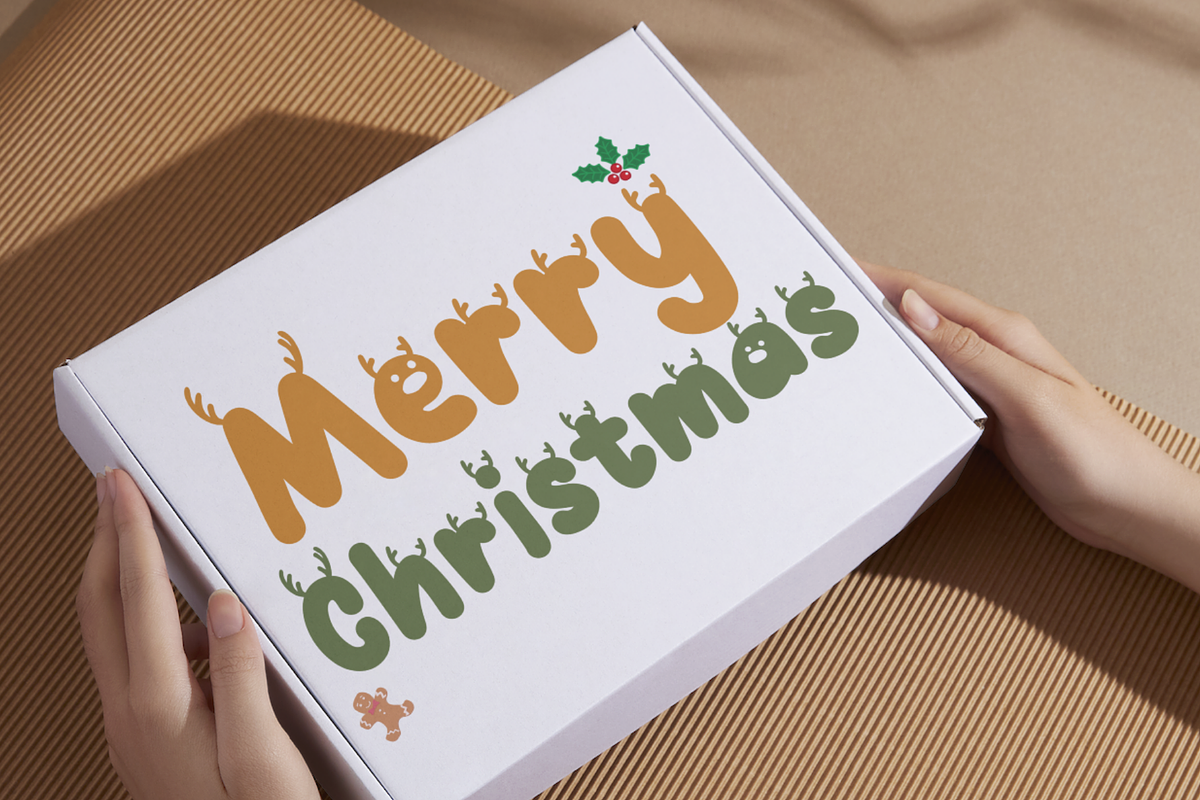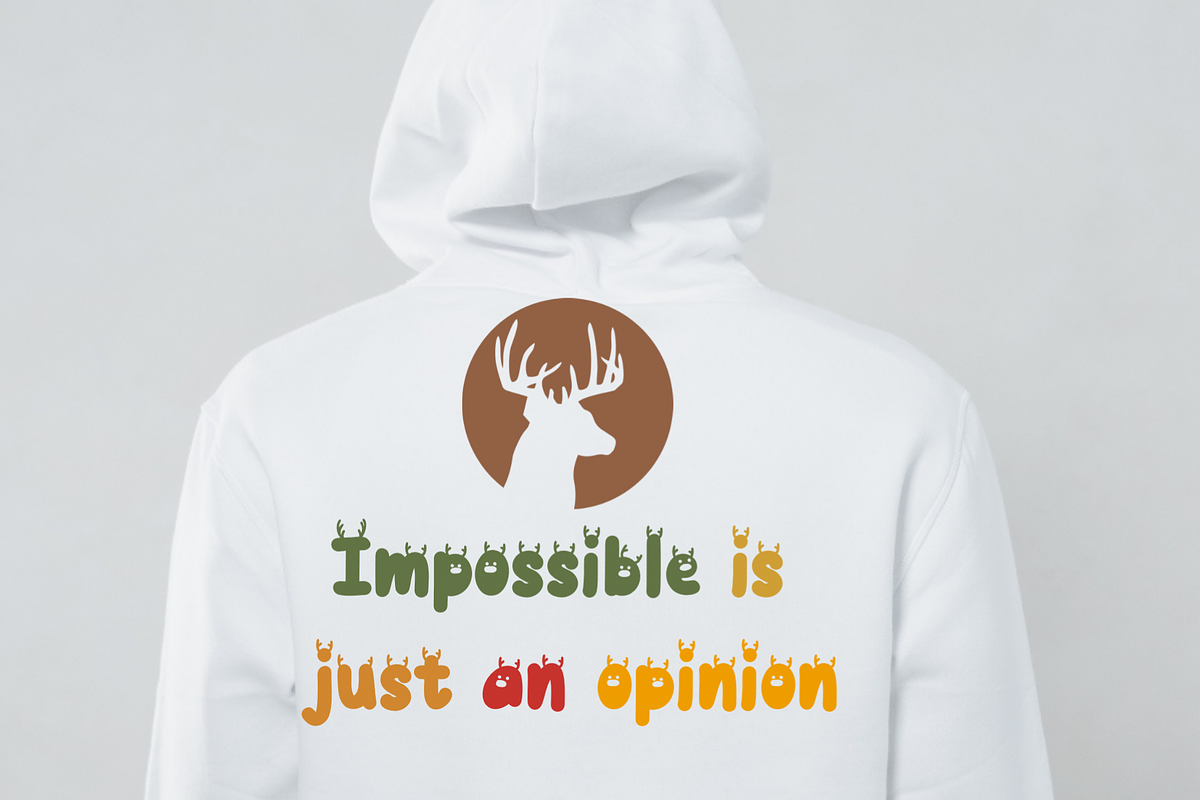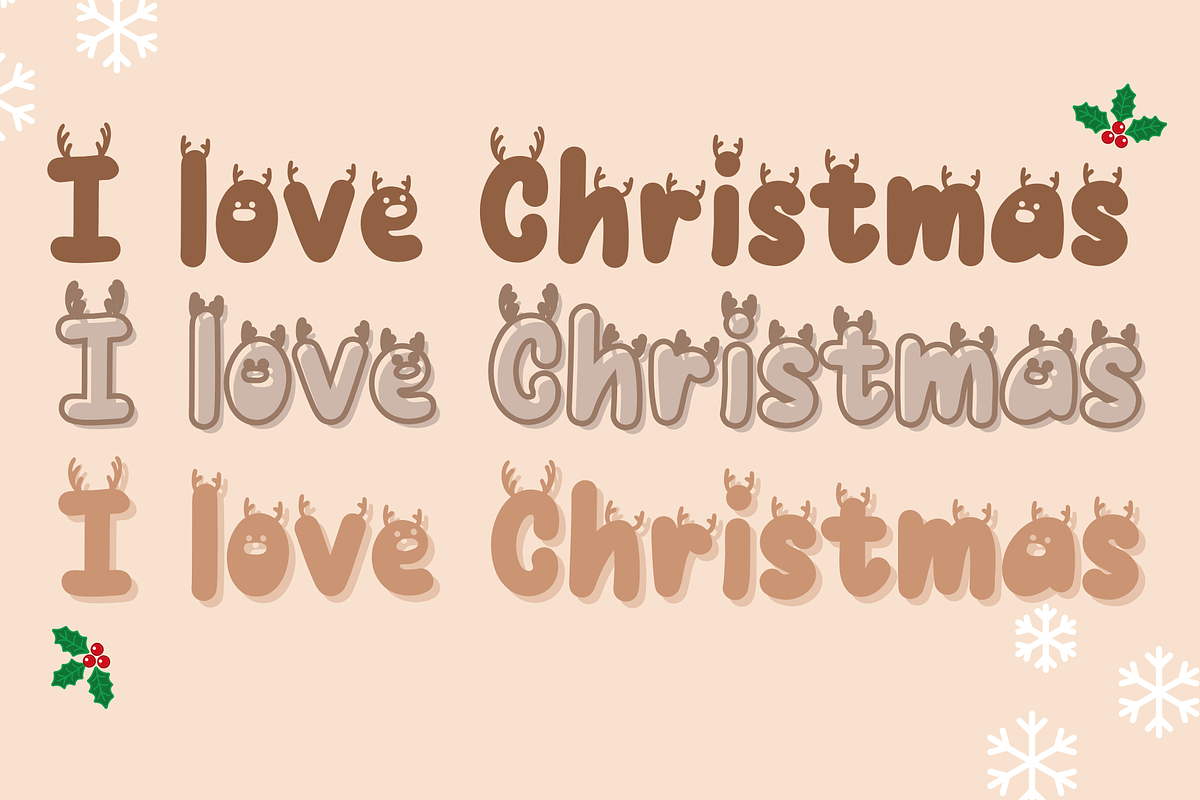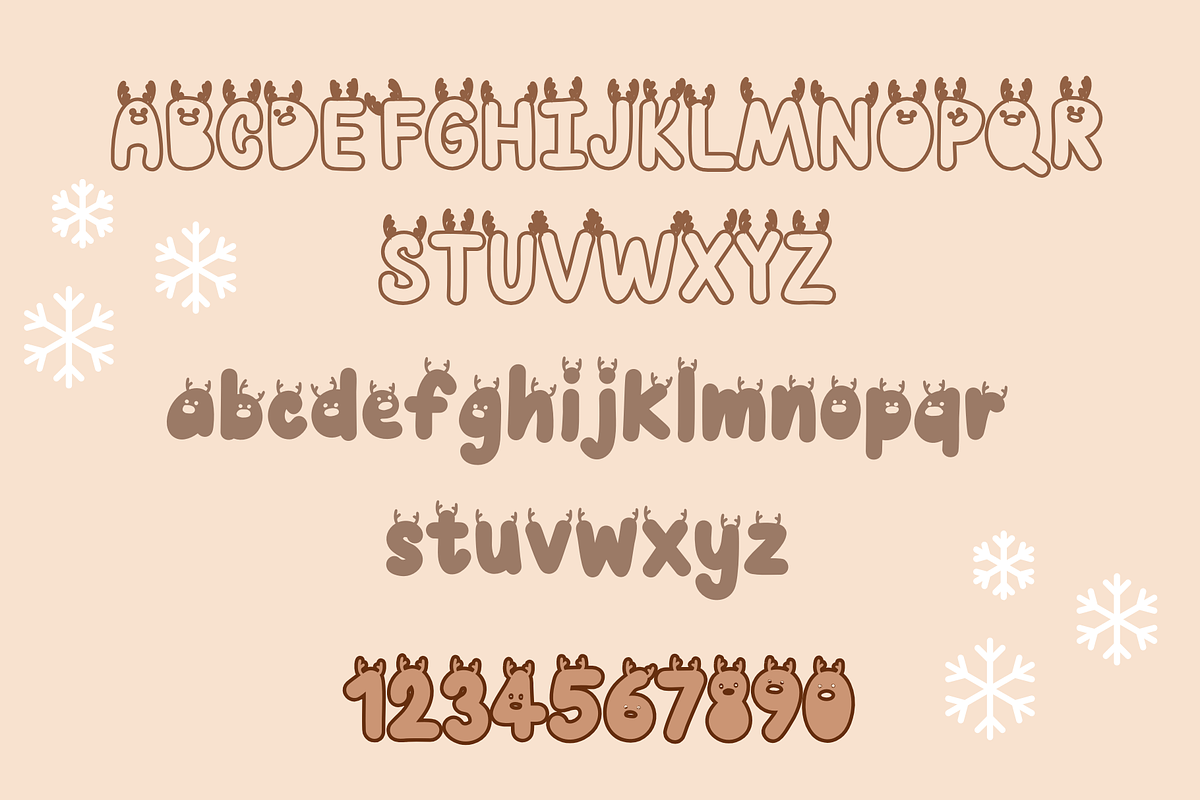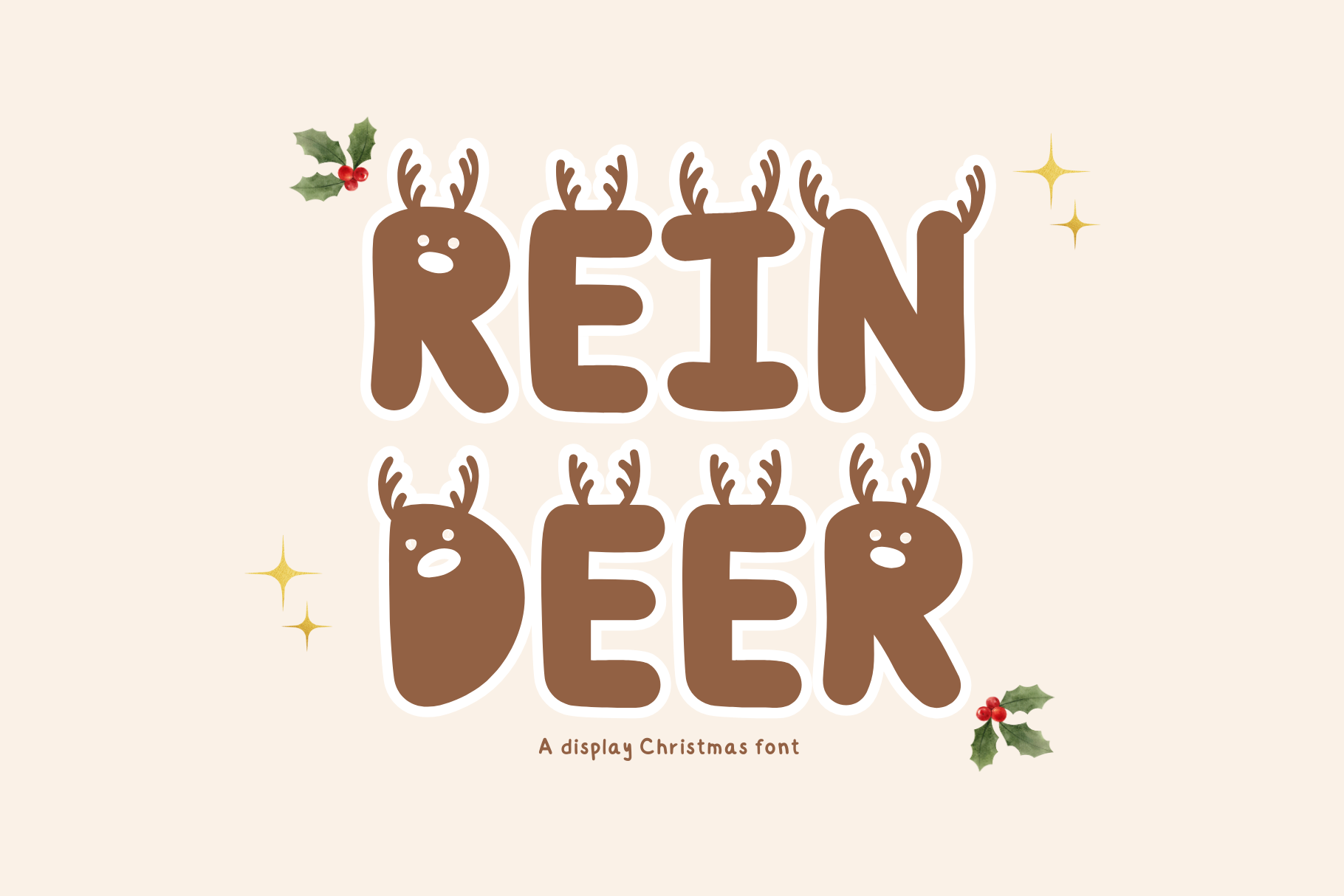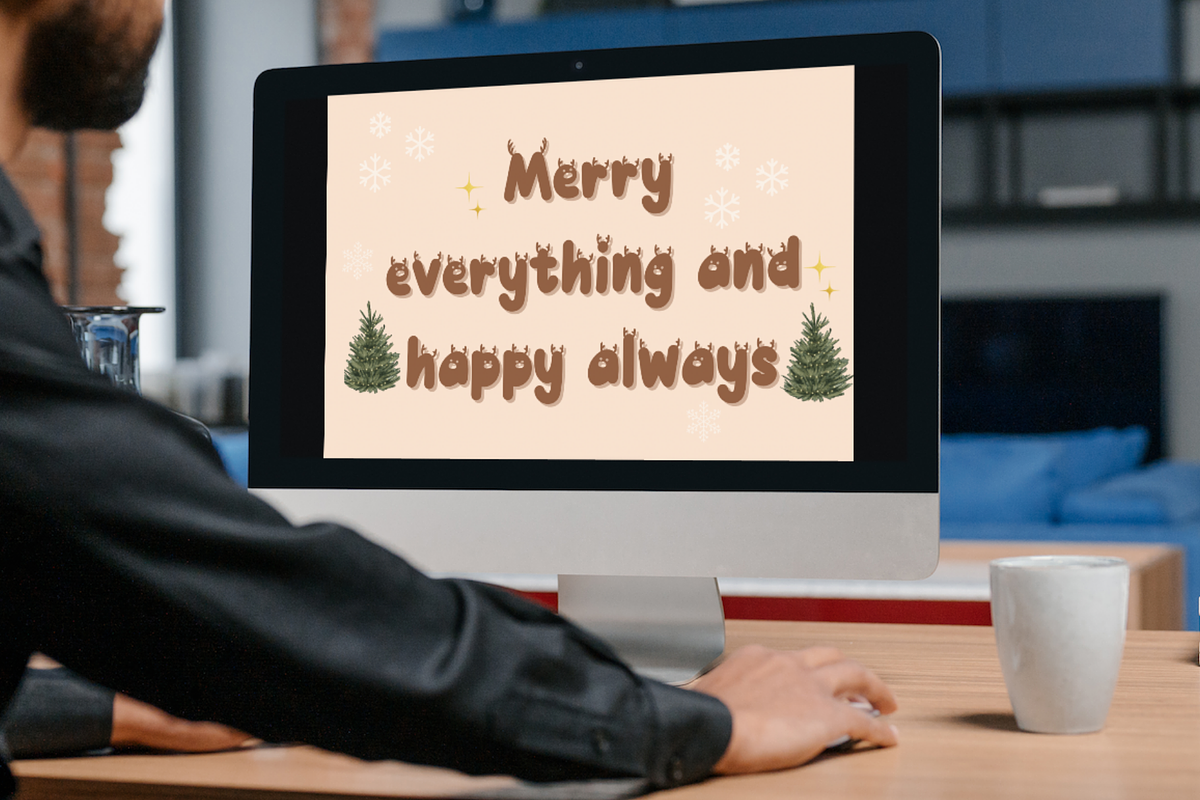
Reindeer font
Reindeer display Christmas font This font comes in a Christmas holiday theme, filled with cuteness and style, making your work unique, interesting, and suitable for various purposes. You can use this font for a wide range of projects, including greeting cards, gift decorations, clothing, glassware, and more.